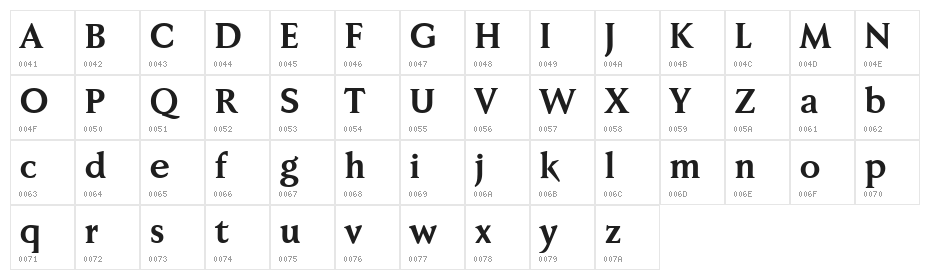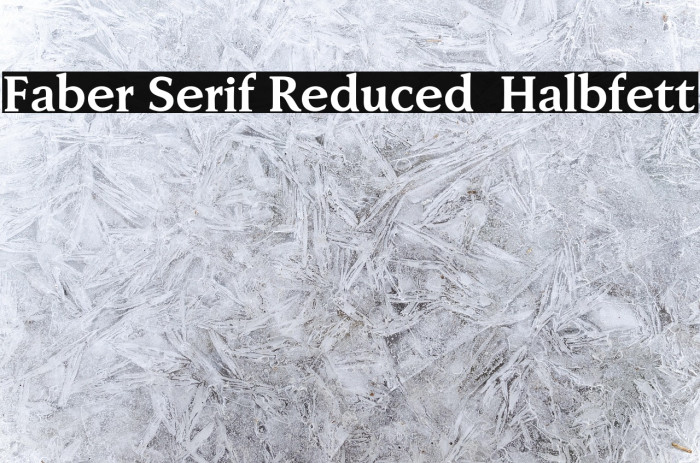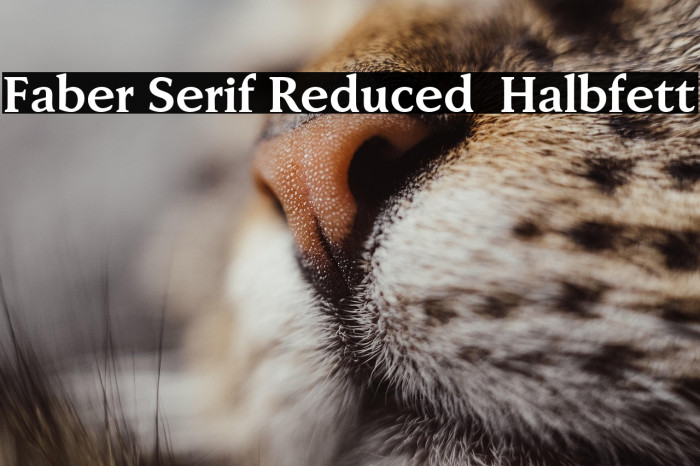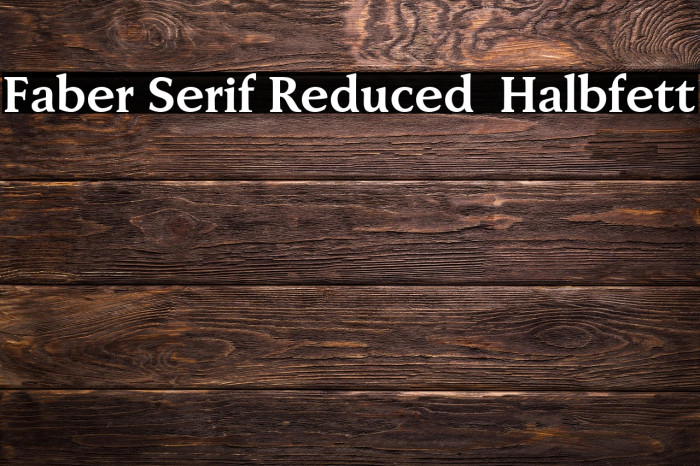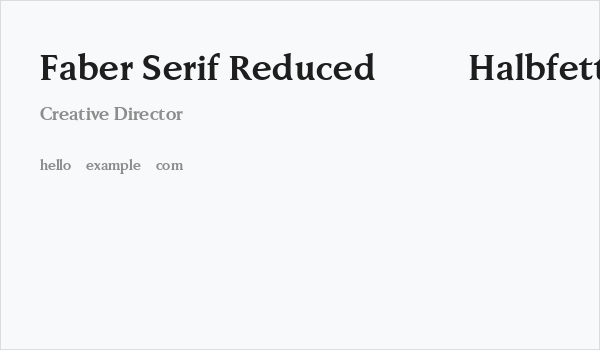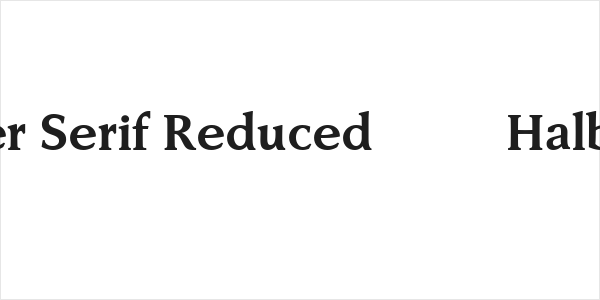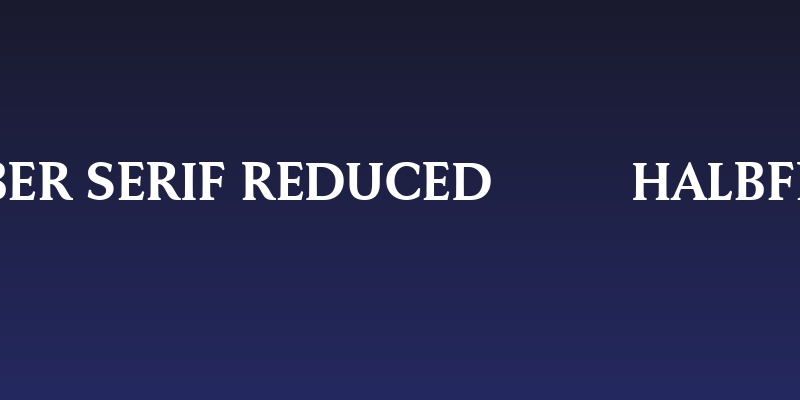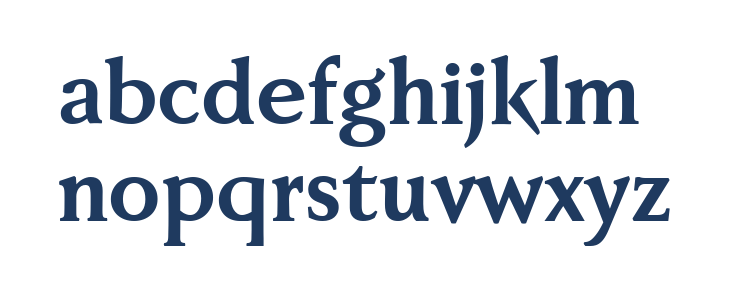
Faber Serif Reduced 75 Halbfett Font
Faber Serif Reduced 75 Halbfett Description
This font exhibits a classic serif style with a strong and authoritative presence. The characters are well-defined with sharp serifs that add a touch of elegance and tradition. The uppercase letters are bold and commanding, while the lowercase letters maintain a consistent weight, providing a harmonious balance. The font's structure is robust, making it suitable for formal and professional applications. Its clear legibility and timeless design make it versatile for various uses. The spacing between characters is normal, ensuring readability without compromising on style. This font is ideal for projects that require a touch of sophistication and reliability.